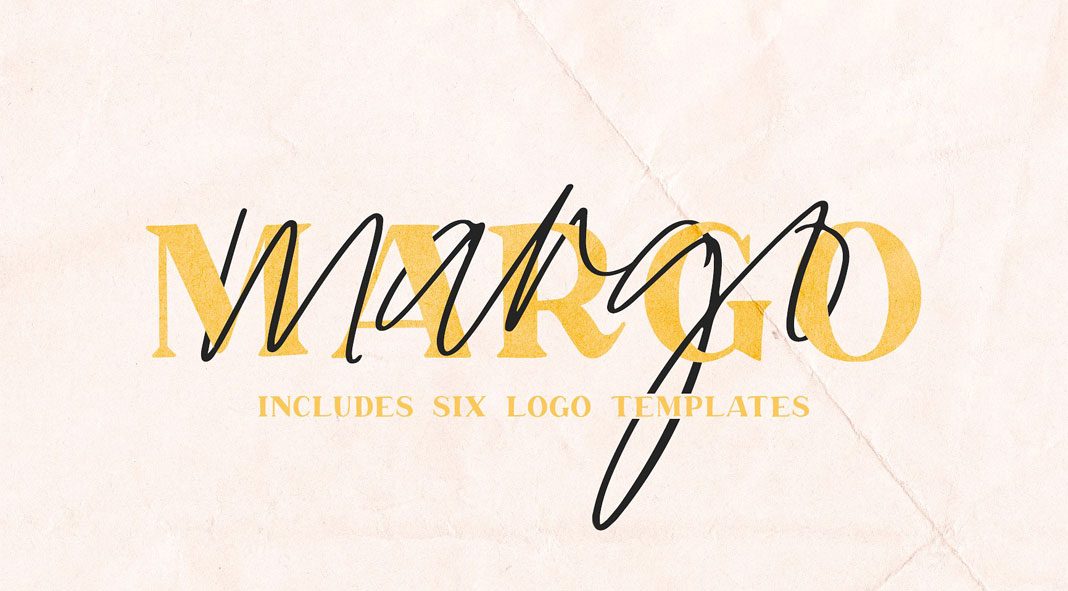
Margo, a font duo created by graphic and type designer Jen Wagner.
Say hello to Margo, a contrasting yet harmonious font duo. Consisting of a classic serif and a natural script, the duo includes lots of ligatures and other typographic features. Equipped with 6 pre-made logos, the family is a great choice for branding projects, wedding invitations, signage, packaging, and more. Read more below or click on the following link to purchase this amazing duo.
- Margo Script includes capital and lowercase letters, alternates, and 108 Ligatures